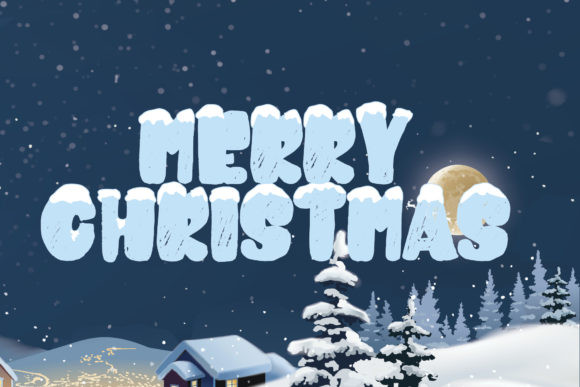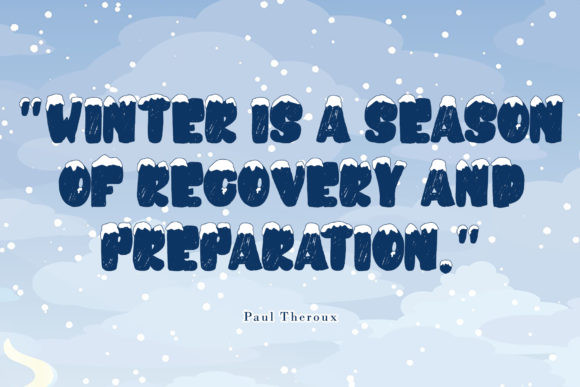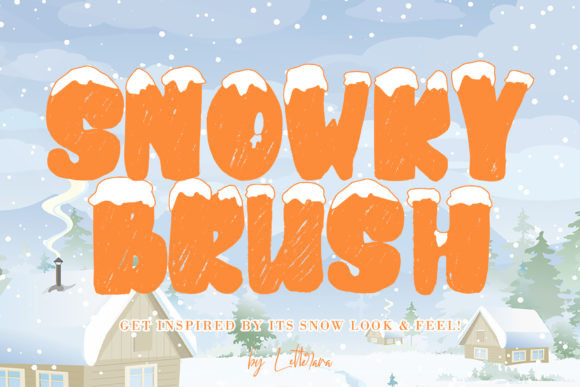
Snowkybrush Font
Inspired by fallen snow, Snowkybrush is a cool and simple display font with a unique winter-themed style. Fall in love with its contemporary look!